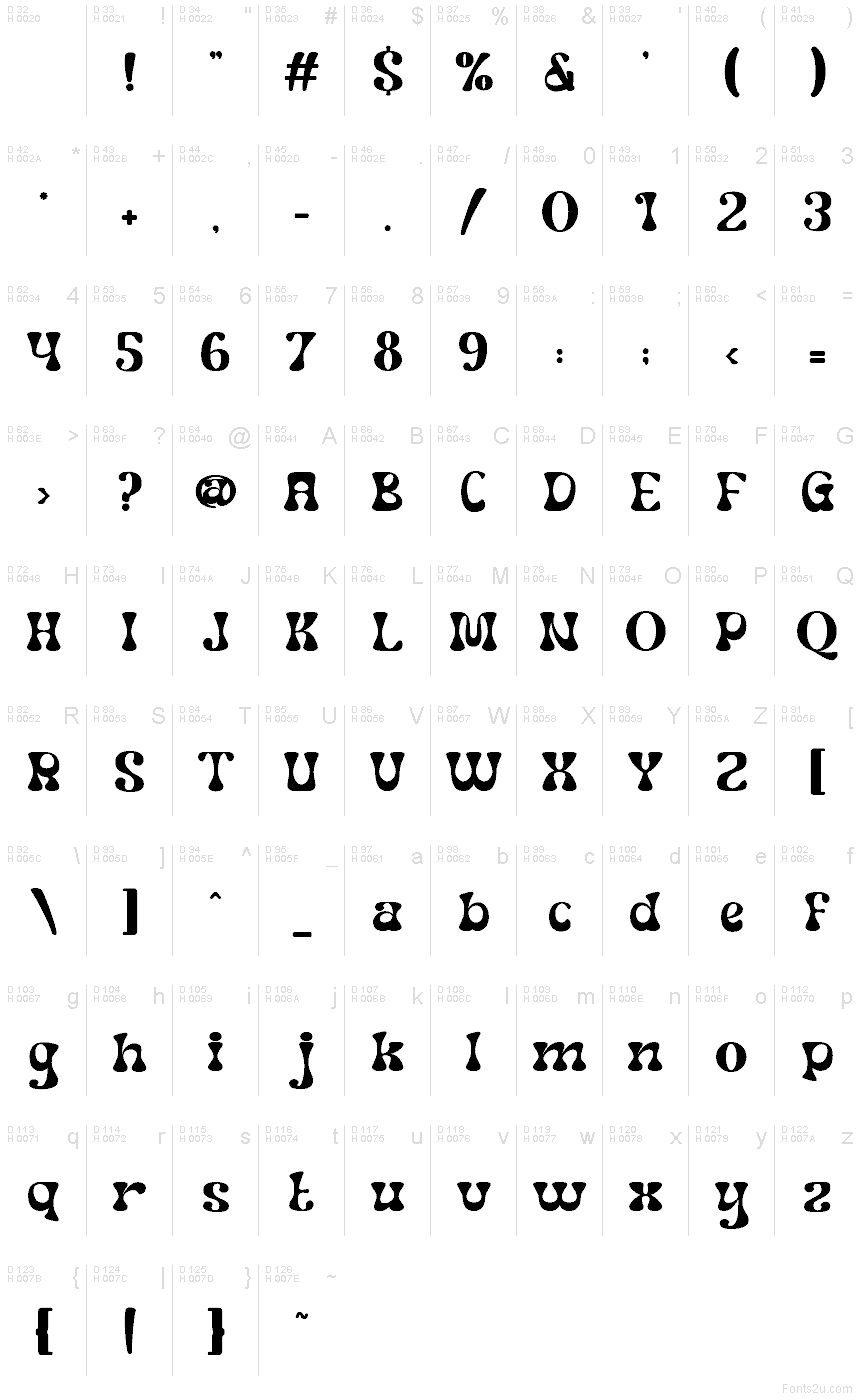
Semisonic
Semisonic font by PutraCetol Studio is a bold groovy display font with an eye-catching retro-inspired type design. Its distinctive letterforms and organic shapes bring a sense of vintage appeal, while the smooth curves invite elegance into your branding work. The elongated shape is almost suggestive of cursive writing’s natural flow, and it’s finally made perfect through all the finishing details along each surface.
This free display font is ideal for product packaging, stickers and labels, logo designs, titles on magazines or books covers, movie posters, merchandise designs like shirts or mugs printing, tattoos designs ideas as well as engraved wedding invitations. It can also be used in digital content from social media posts to website banners.